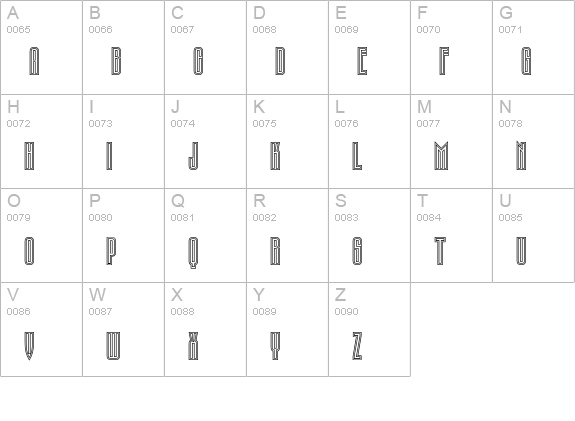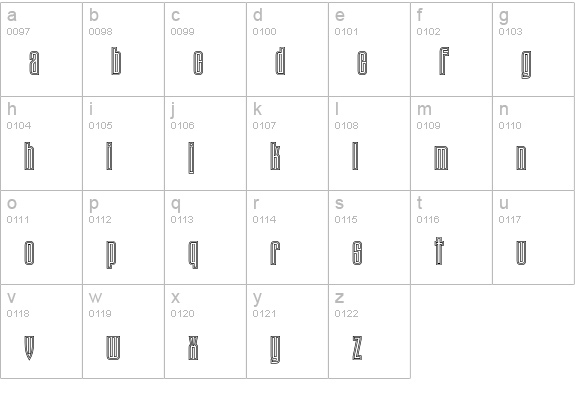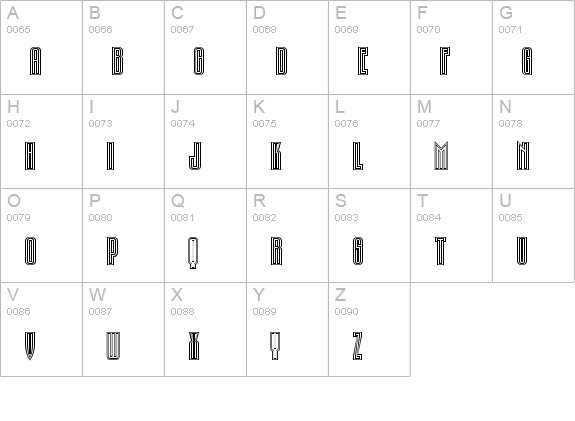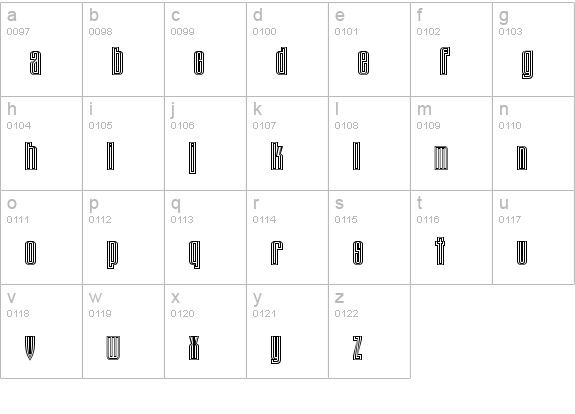
PT TauernEngraved Cyrillic Font Details
Introducing PT TauernEngraved Cyrillic font - a captivating typographic masterpiece that effortlessly combines elegance and intricacy. With its stunning engraved design, this font adds a touch of sophistication to any project, making it perfect for invitations, signage, branding, and more. PT TauernEngraved Cyrillic boasts a unique blend of traditional Cyrillic letterforms and an enchanting engraved style, resulting in a truly remarkable typeface. Its meticulously crafted details reveal a delicate balance between craftsmanship and artistic expression, capturing the eye and sparking curiosity. What makes PT TauernEngraved Cyrillic even more exceptional is that it is available for free! Yes, you heard it right. This remarkable font can be freely downloaded at FontsMarket.com, ensuring that its beauty and versatility are accessible to all. Whether you're a designer looking to elevate your creations or a typographic enthusiast seeking a font that speaks volumes, PT TauernEngraved Cyrillic is the perfect choice. Its refined lines and intricate details will undoubtedly leave a lasting impression, making your designs shine with elegance and sophistication. Download PT TauernEngraved Cyrillic today from FontsMarket.com and unlock a world of limitless creative possibilities. Don't miss out on this incredible opportunity to enhance your projects with a font that effortlessly blends tradition and modernity. Embrace the beauty of PT TauernEngraved Cyrillic and let your imagination soar.